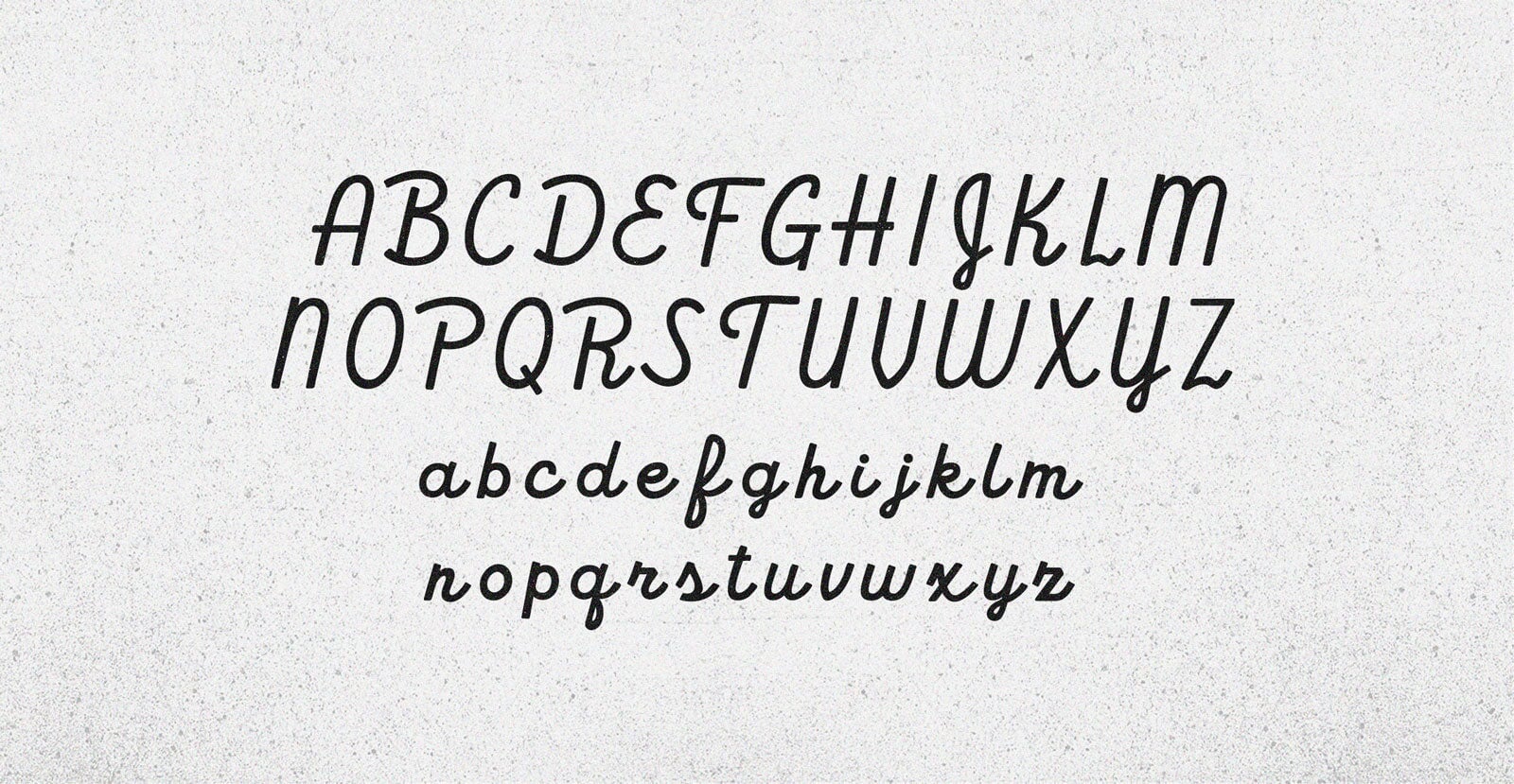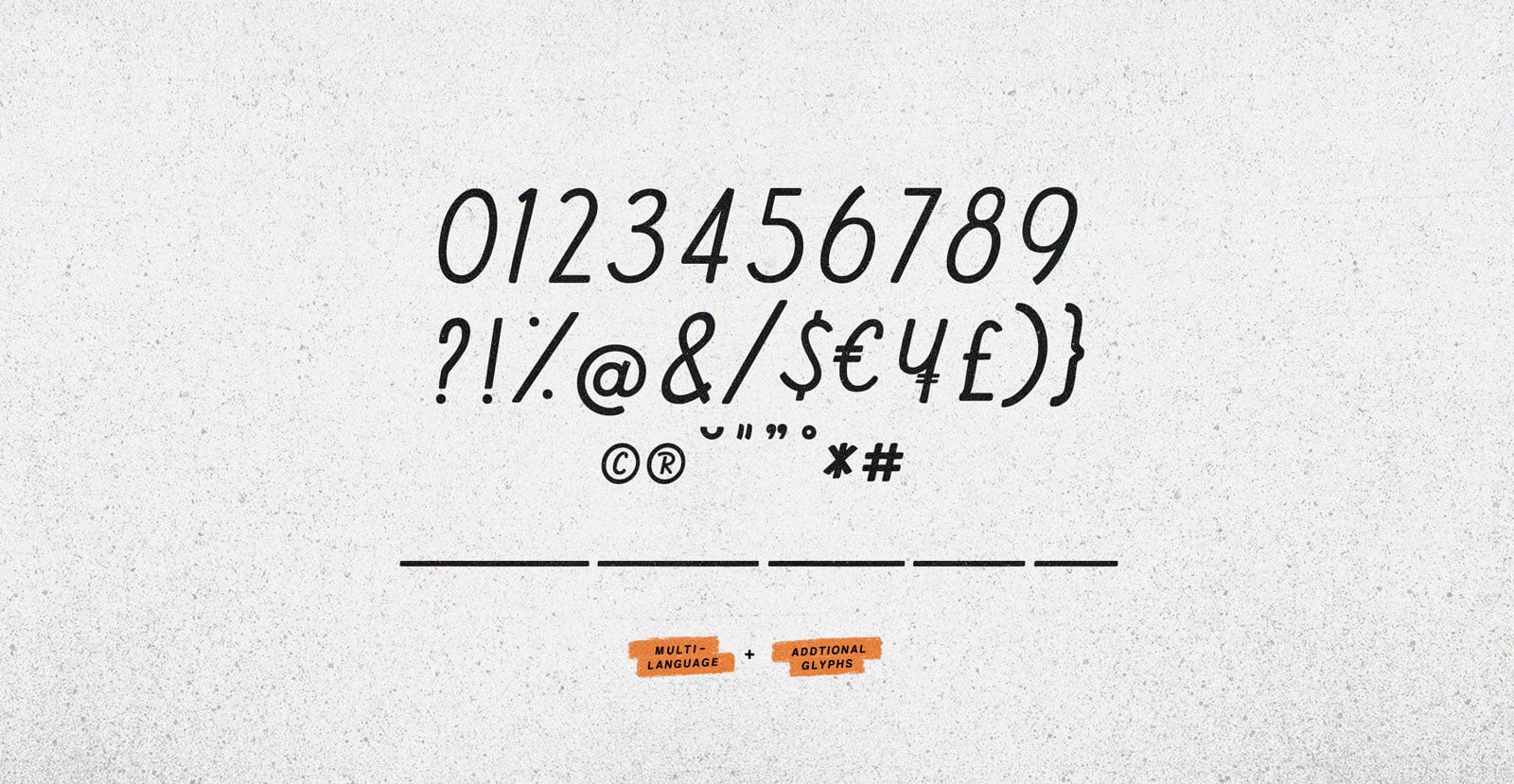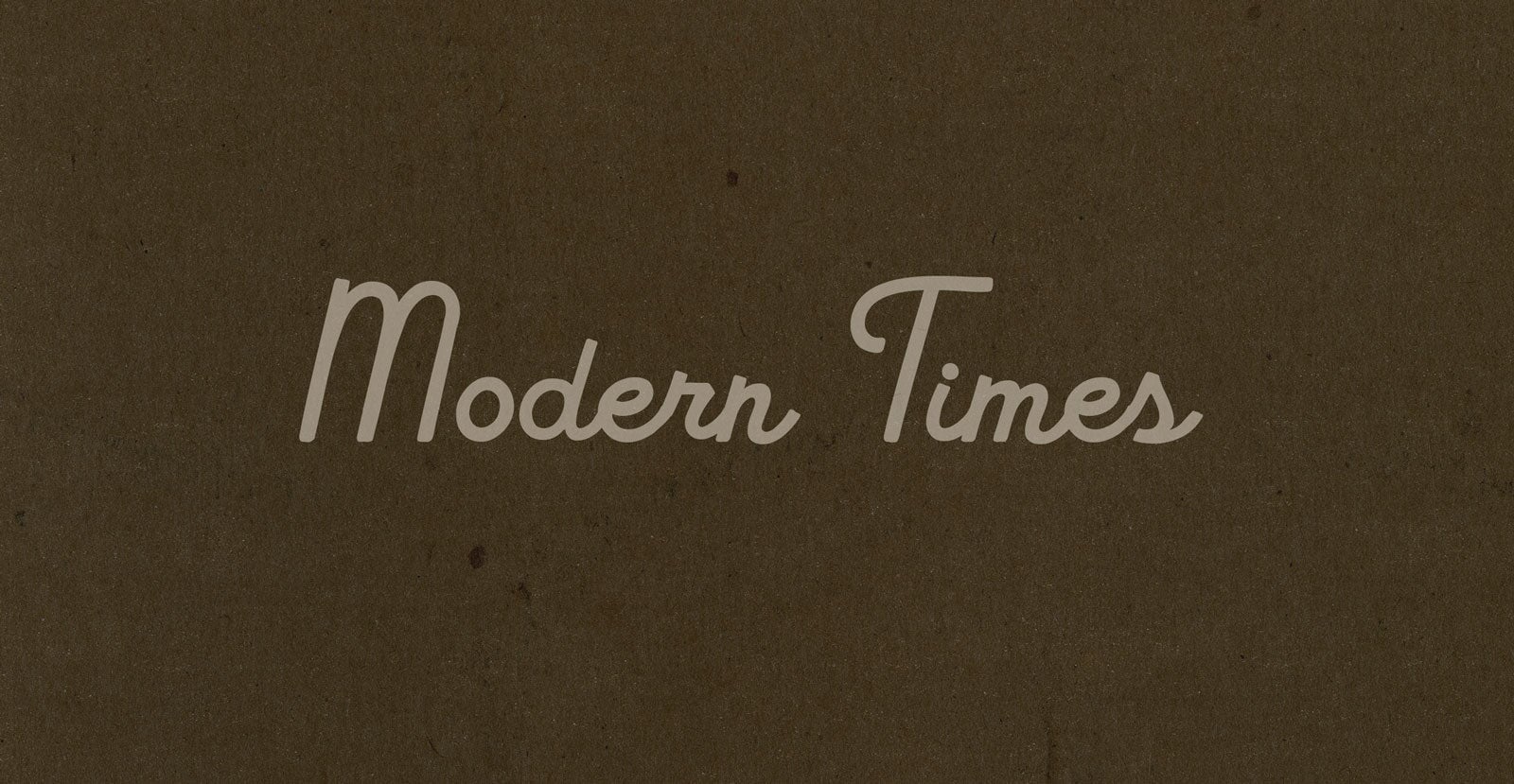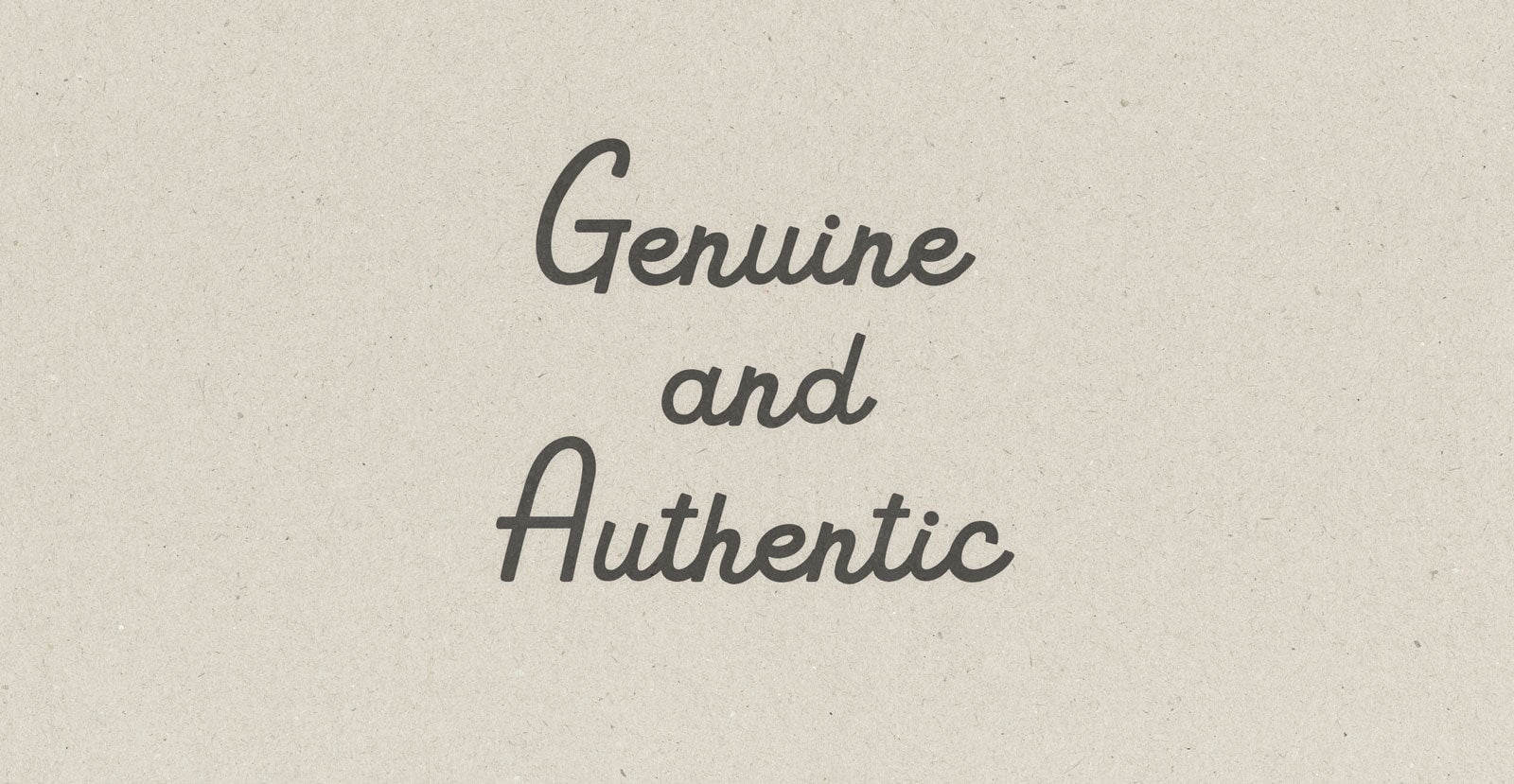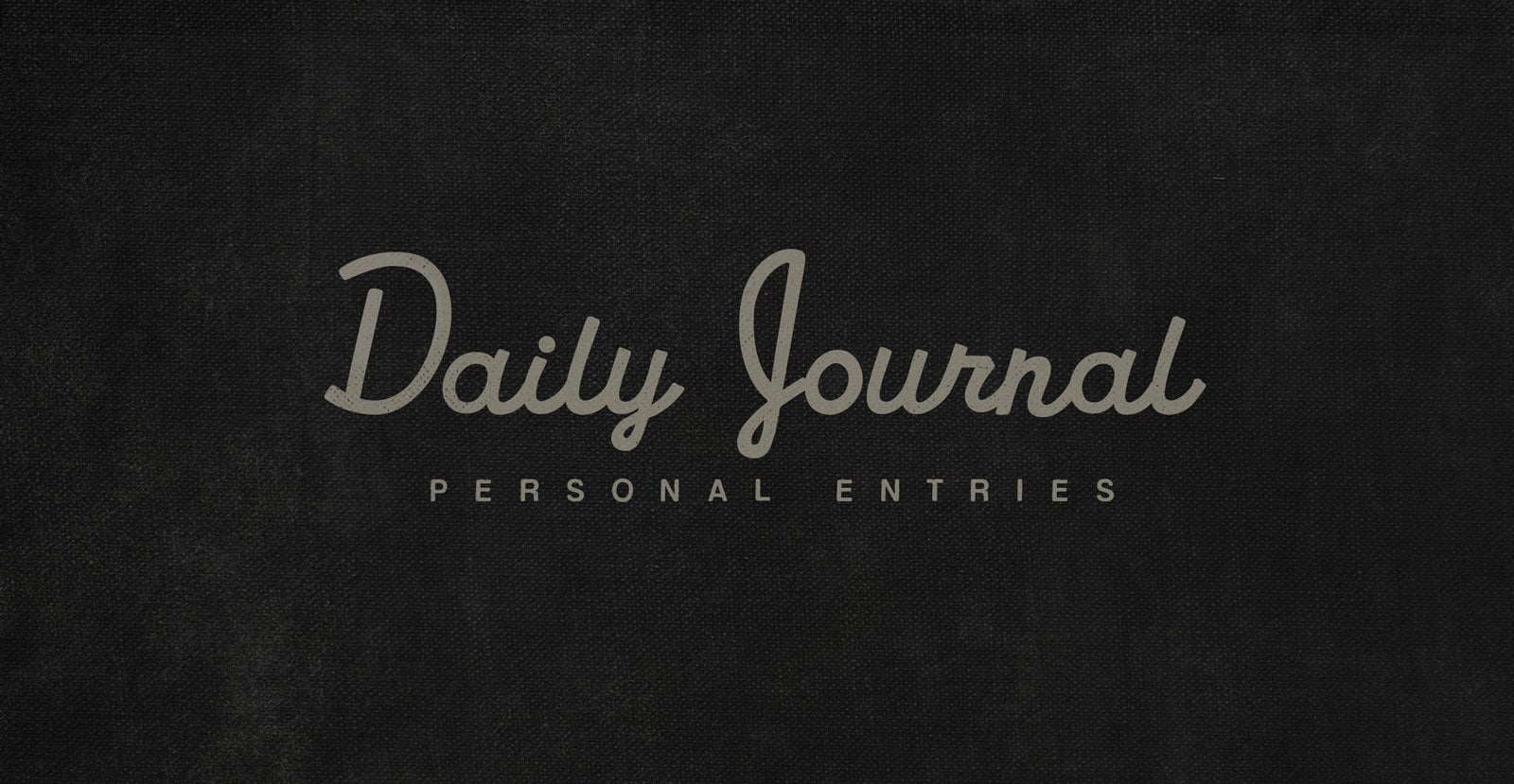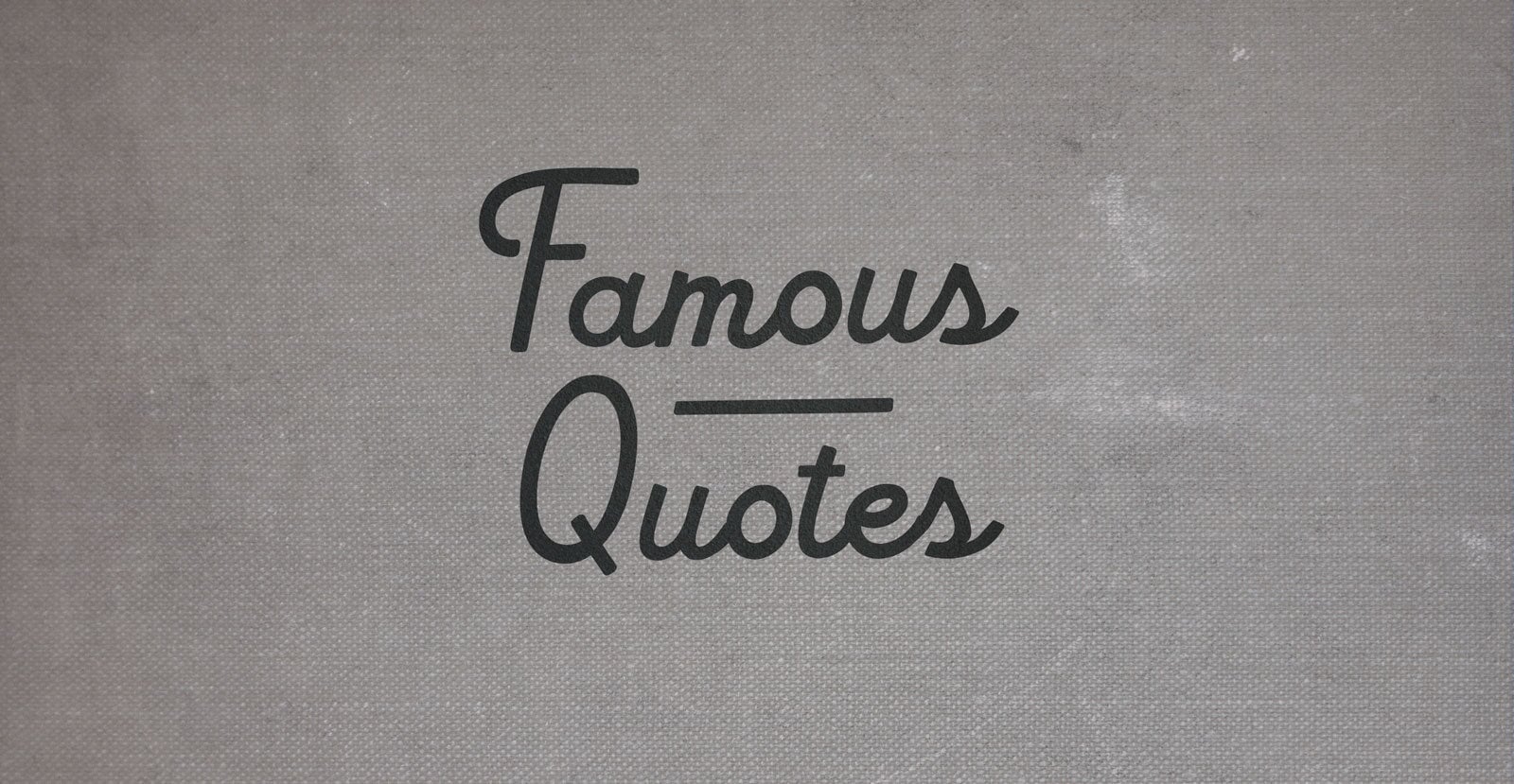
Post Script
Quill still aquiver, the scribe turns to the fount of next knowledge, takes up the tools of the future. He’ll carve out a place, Post Script, in pillars, punches, and pieces of wood. PS, the pen stands.